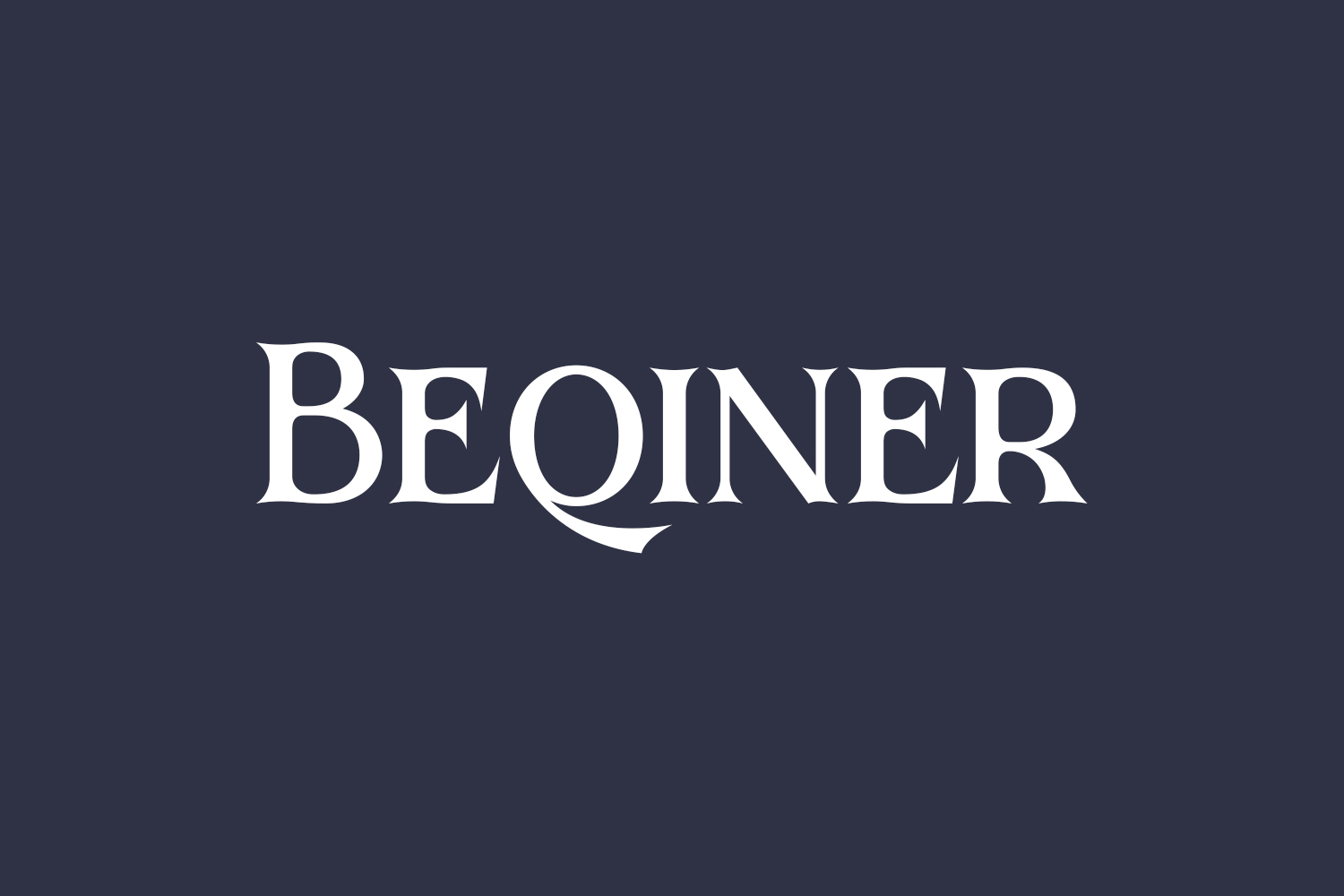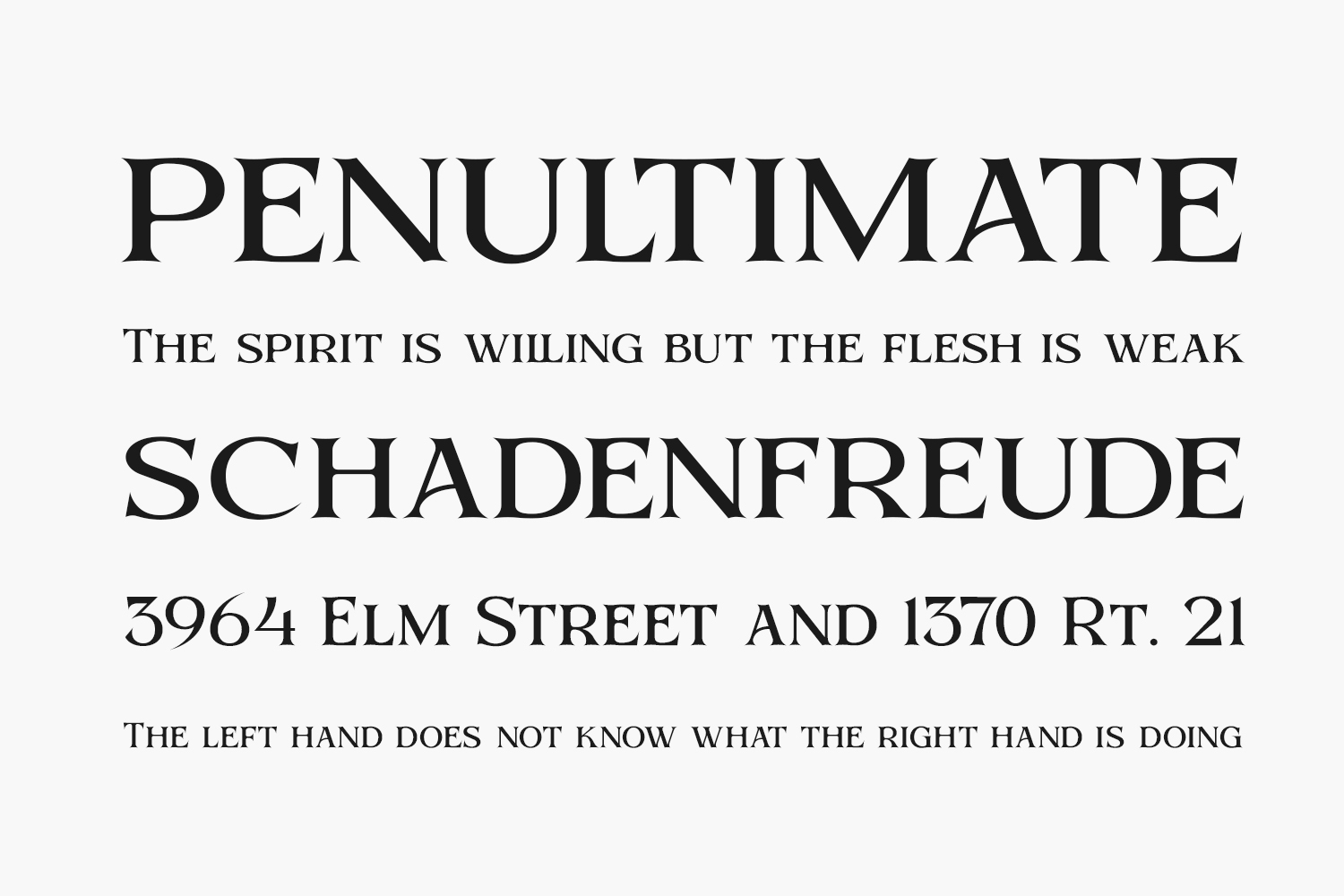
Introducing Beqiner Free Font Family, a sophisticated and chic serif font that enhances any design effortlessly. Elevate your font collection with this versatile typeface, perfect for any project. Download the font for free if you need it for personal use or purchase the full version for commercial use.